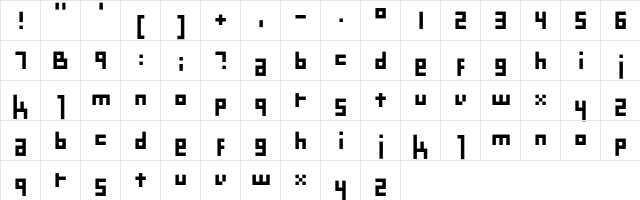
Mekanek Regular
Design Context for Mekanek Typeface
Mekanek takes a measured approach to typography — its balanced proportions and neutral character make it a reliable workhorse for both digital and print work.